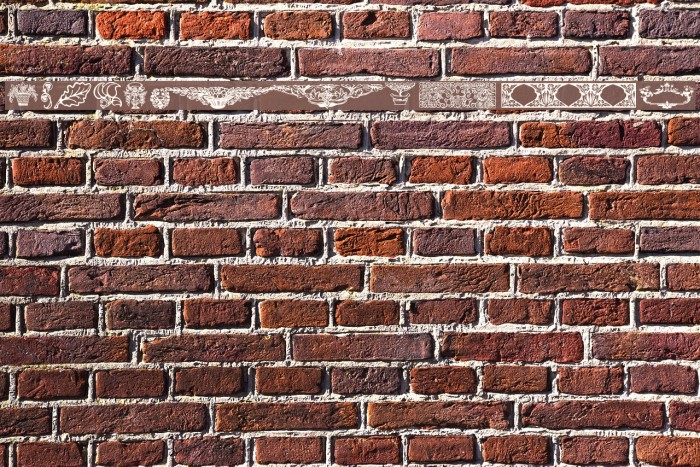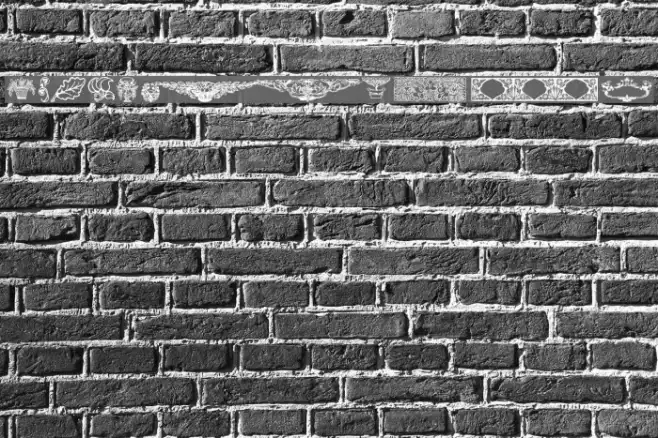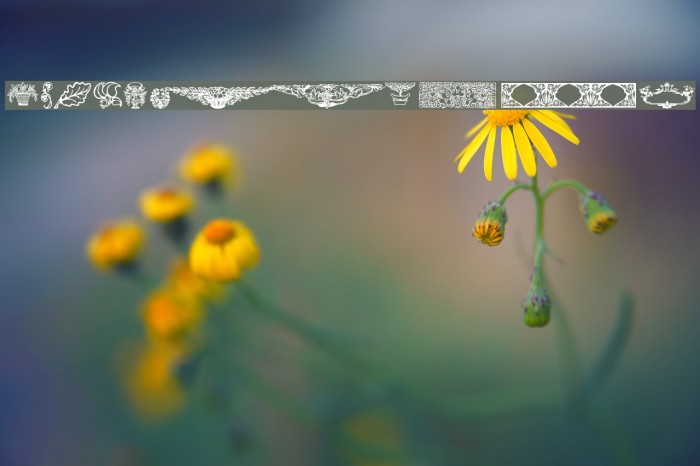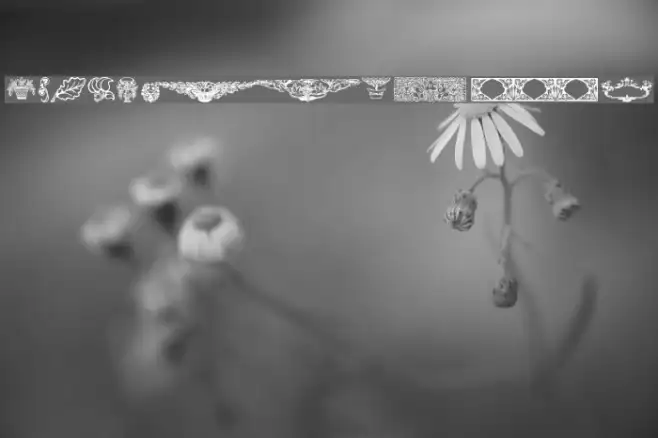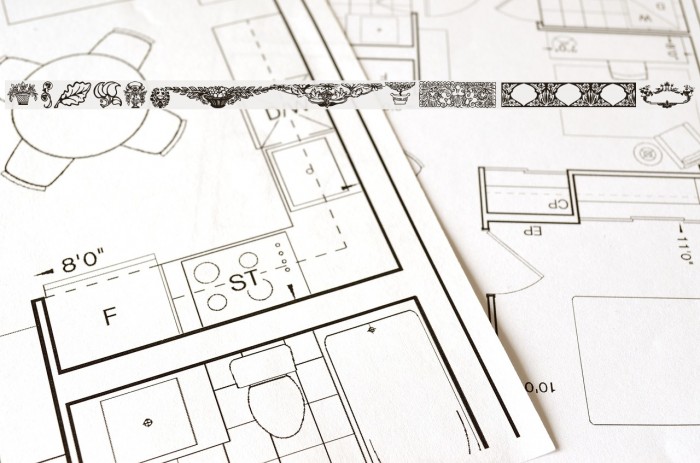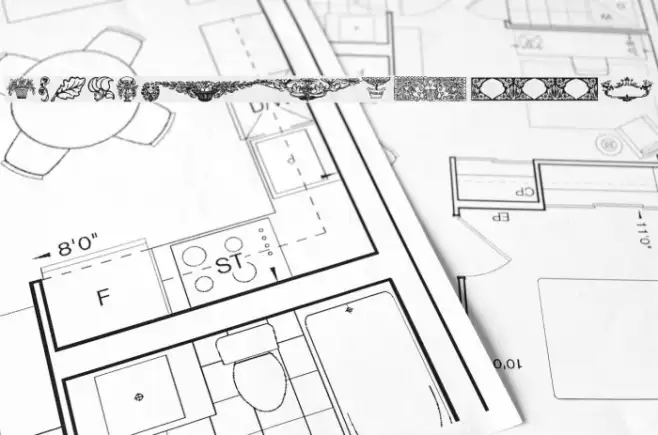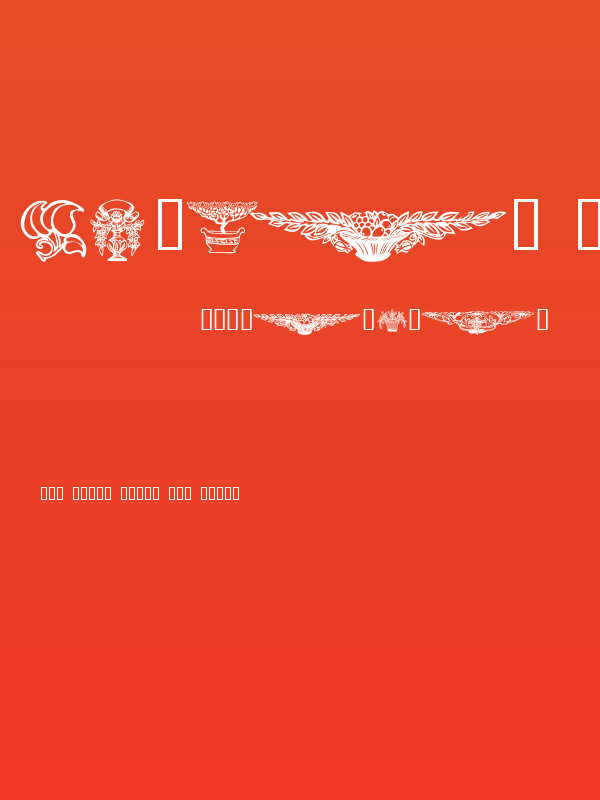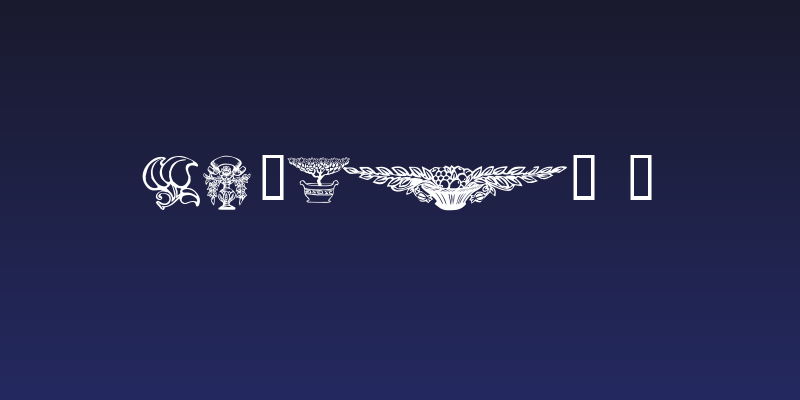
Design 6 Font
Design 6 Description
This font features intricate decorative elements that resemble ornate patterns and embellishments. The design includes a series of decorative motifs and flourishes that are reminiscent of vintage or classical styles. The characters are not standard alphanumeric symbols but rather decorative elements that could be used as borders, dividers, or embellishments in design projects. The style is highly ornamental, focusing on aesthetic appeal rather than readability.
Overall StyleVintage
Use CaseDecorative elements, Borders, Invitations
Proposed ProjectsIdeal for use in decorative projects such as invitations, certificates, or any design requiring ornamental borders and embellishments.